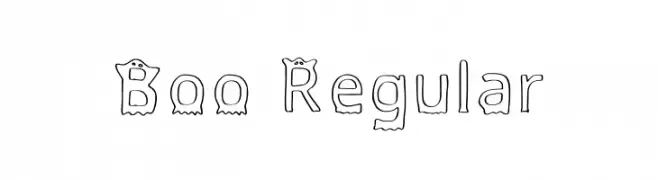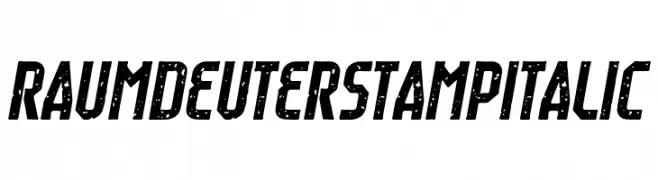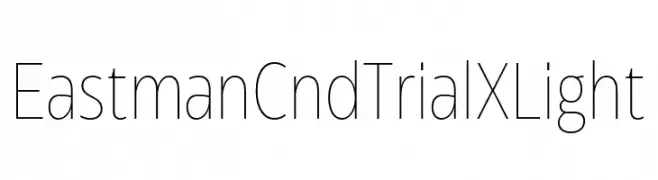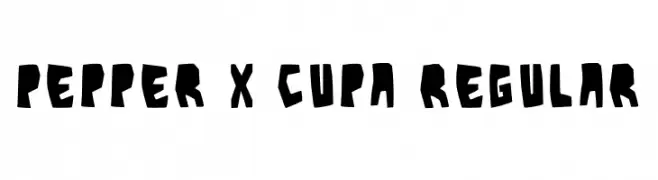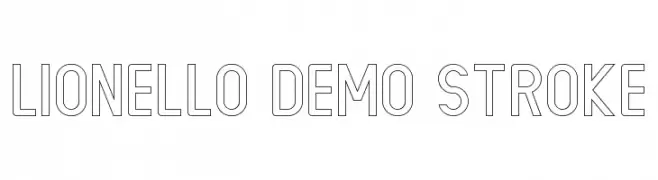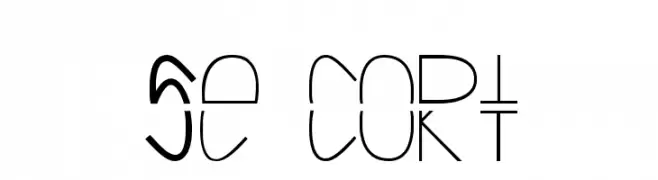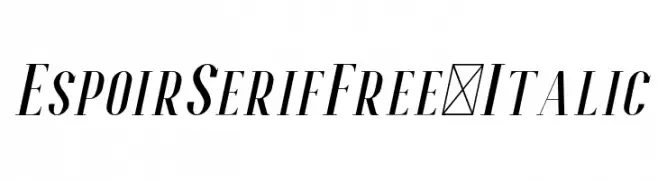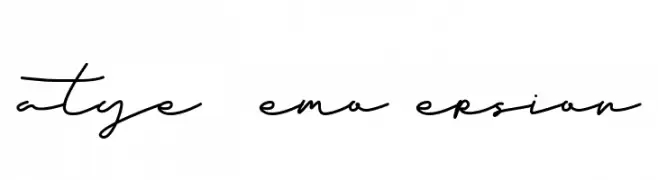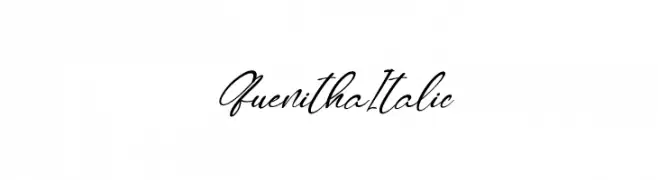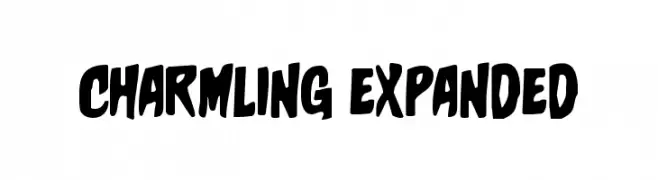
A playful, ghost-themed font with a hand-drawn, outlined style.
A bold, italicized font with a distressed, vintage texture.
A bold, geometric font with a futuristic and industrial style.
A bold, decorative slab serif font with unique cut-out details.
A sleek, modern, and condensed font with clean lines and a minimalist aesthetic.
A bold, 3D italic font with outlined characters and a modern style.
Bold, quirky display font with a hand-drawn look.
A sleek, italic font with a futuristic and dynamic design.
A futuristic, two-tone italic font with a dynamic and speedy appearance.
A modern, geometric outline font with clean lines and uniform stroke width.
A bold, slab serif font with a strong, modern presence.
A bold, italic font with a dynamic and modern style.
A futuristic and geometric font with unique letterforms and a modern aesthetic.
A playful, handwritten font with a casual and friendly vibe.
Elegant serif font with italic style and medium contrast.
An elegant and decorative font with intricate swirls and flourishes.
A delicate and elegant script font with fluid, continuous strokes.
A bold, geometric font with a modern, industrial style.
A graceful and elegant script font with flowing, cursive letterforms.
A bold, italicized font with a futuristic and dynamic design.
A bold, playful font with a hand-drawn, whimsical style.
A bold, geometric outline font with a modern, industrial style.
Elegant serif font with italic slant and high contrast strokes.
A bold, tribal-inspired font with sharp, angular edges and a dynamic style.
A bold, playful font with a 3D effect and rounded, cartoonish letters.
A graceful calligraphic font with flowing, elegant strokes.
A bold, geometric font with a modern, angular design.
A sleek, modern italic font with uniform stroke width and geometric design.
A sleek, modern sans-serif italic font with smooth curves and consistent line thickness.
A modern, geometric sans-serif font with a light and airy feel.
A playful, handwritten font with smooth, flowing strokes and a whimsical charm.
Expressive, bold handwritten script with brush-like strokes.
An elegant script font with intricate swirls and decorative flourishes.
A sleek, modern italic font with geometric precision and a futuristic appeal.
A playful, cursive-like font with bold, flowing strokes and a hand-drawn appearance.